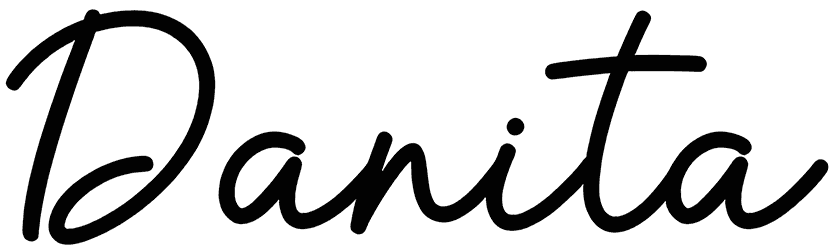
Front Light Font
If you really crave to establish a sense of modernity, futuristic, vitality, or dynamic in all of your graphic content, we would like to advise you to pick up an eye-grabbing neon font the same to the Front Light.
Due to its rounded style, this masterpiece can be your reliable assistant in the middle of a critical project, such as social media posts, video game brochures, applications, street posters, or digital banners. Bear in mind to visit the RB archive.
Designed by: Alit Design